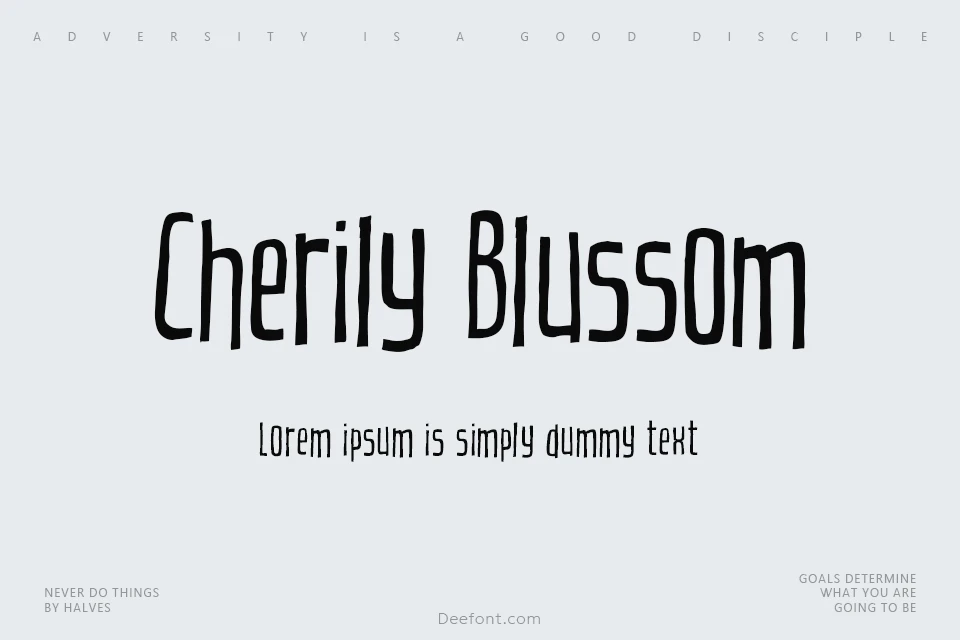
Cherily Blussom Font
Cherily Blussom Font was made with an inky pen, and little was done to correct the blurry edges.
That’s why Cherry Blussom stands out in such an authentic way!
The shareware version comes with both ligatures and alternates – combine them and spice up your text!